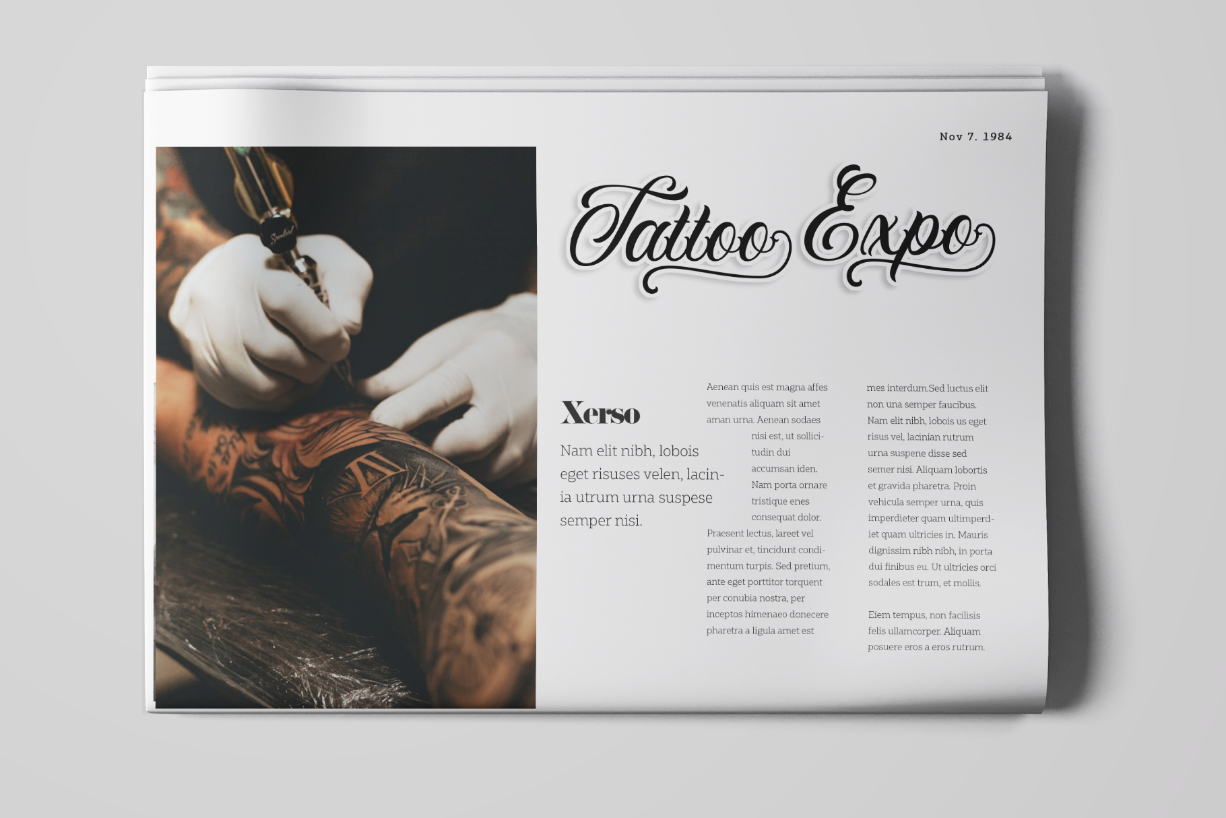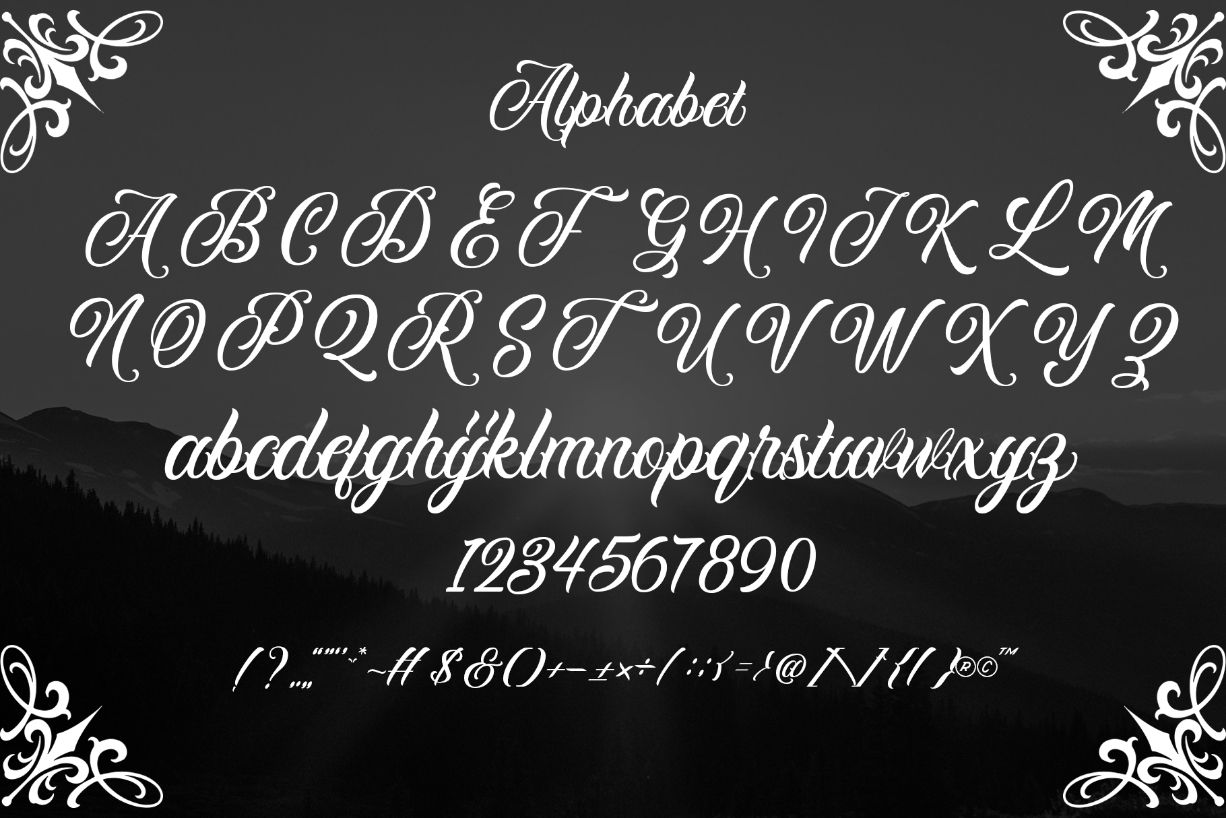
About Rortves Font
Rortves is a highly detailed and unique blackletter font. Add this ravishing looking font to each of your love letters, wedding invitations or favorite design ideas, and you will be astounded by the outcome.